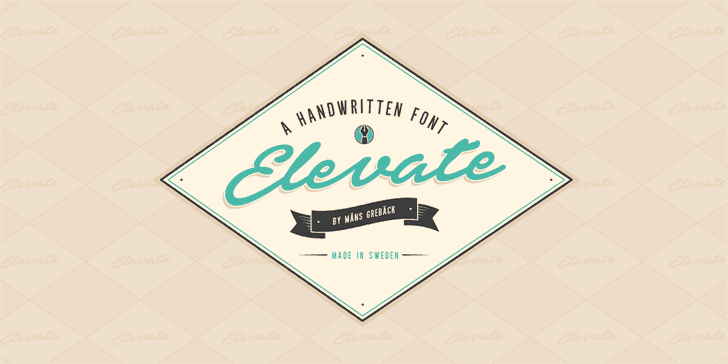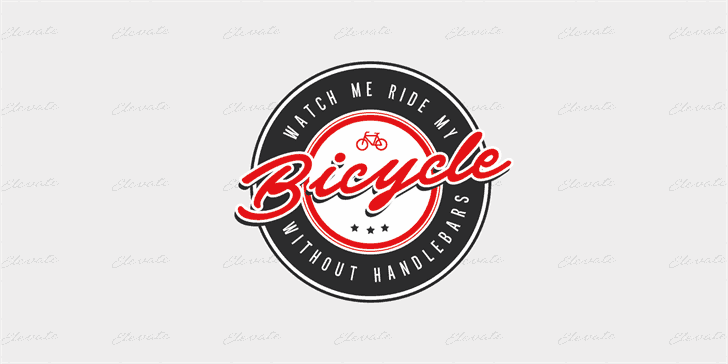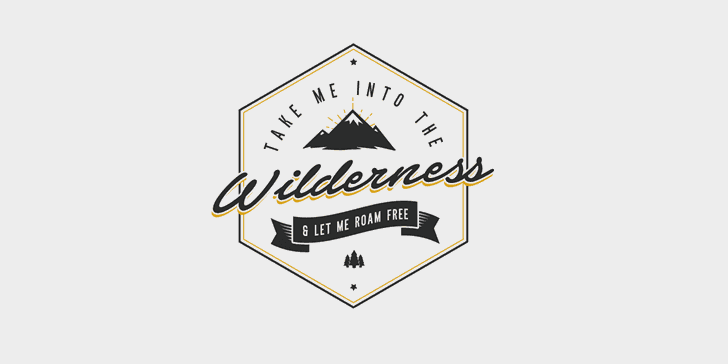
Introducing Elevate Font. In particular, this font is great for any kind of print and web works like banners, posters, prints, brochures, logos, and etc.